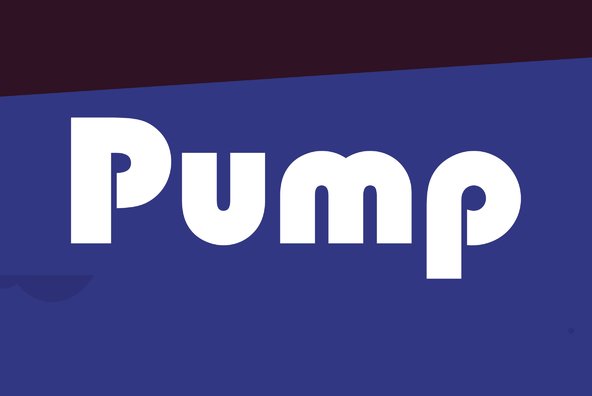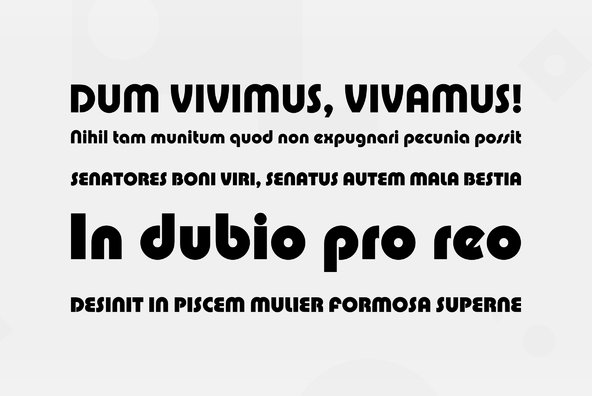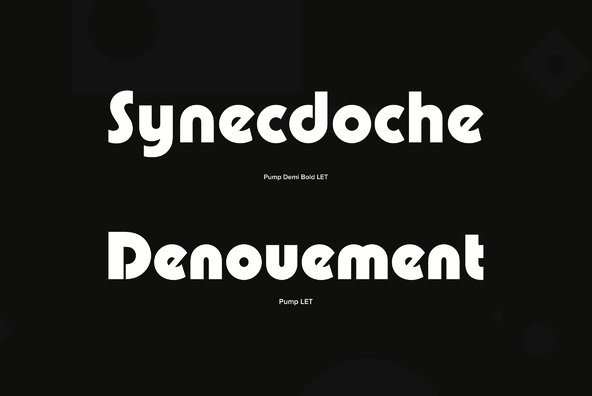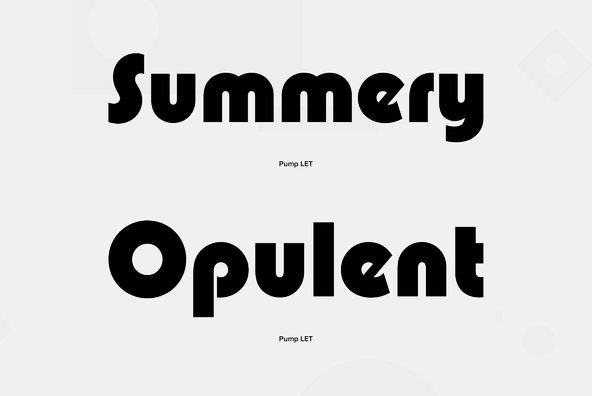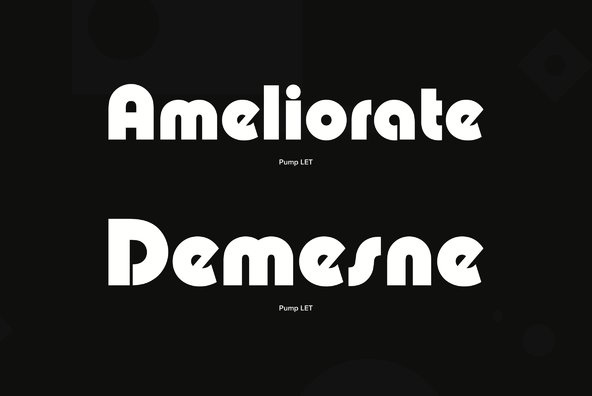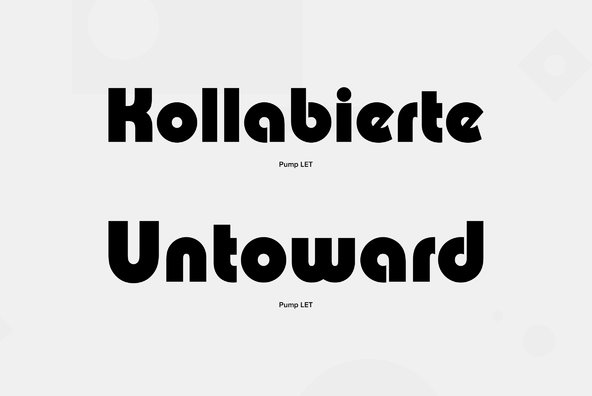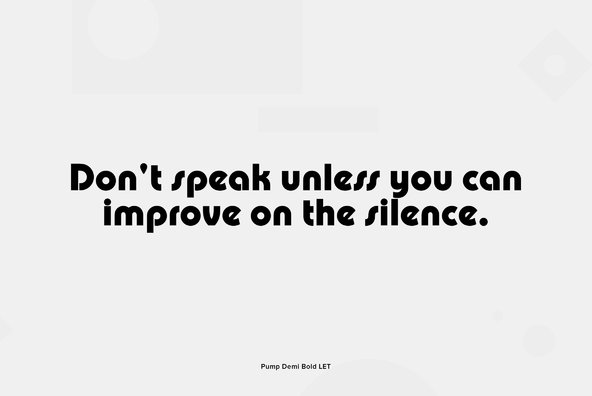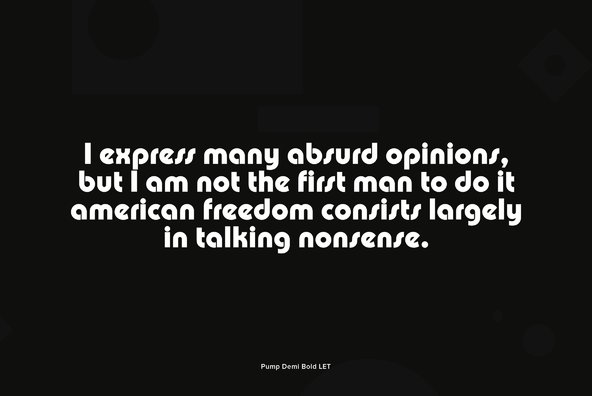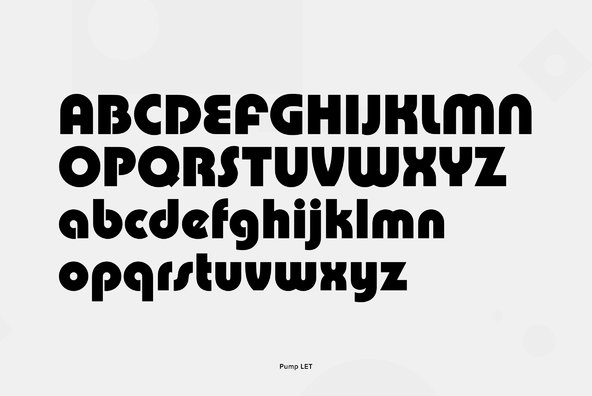
Designed in the Type Studio in response to the renewed interest in the simple, geometric, sans serif Bauhaus style from earlier in this century.
Designed in the Type Studio in response to the renewed interest in the simple, geometric, sans serif Bauhaus style from earlier in this century. Pump has endured over twenty years and remains one of the best typefaces of this style in use today. For maximum effect, Pump should be set closely.